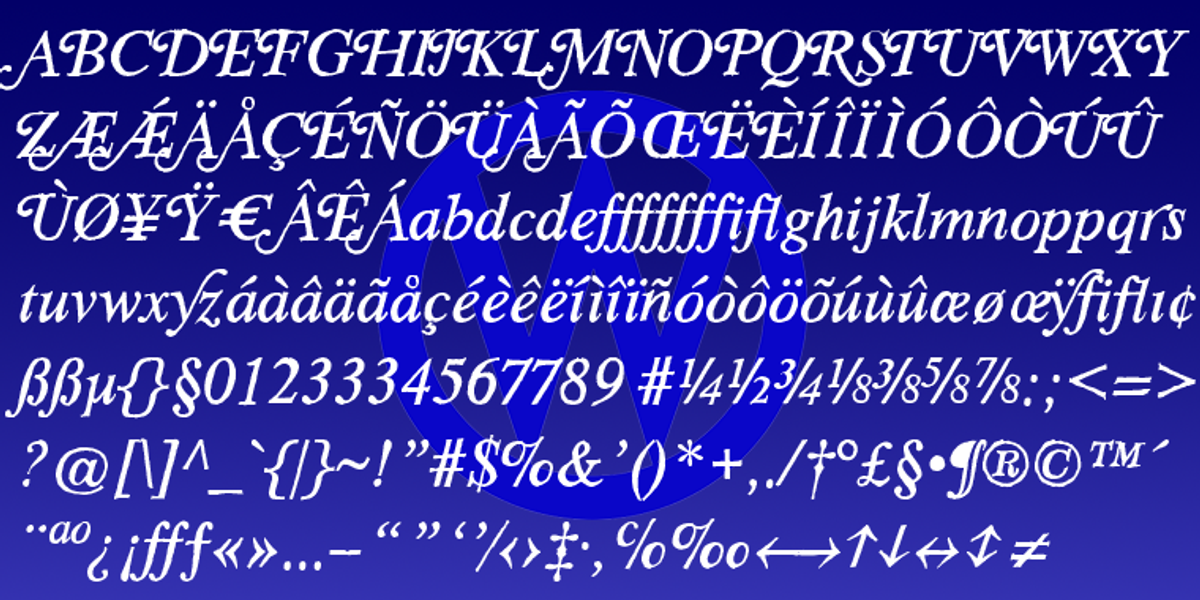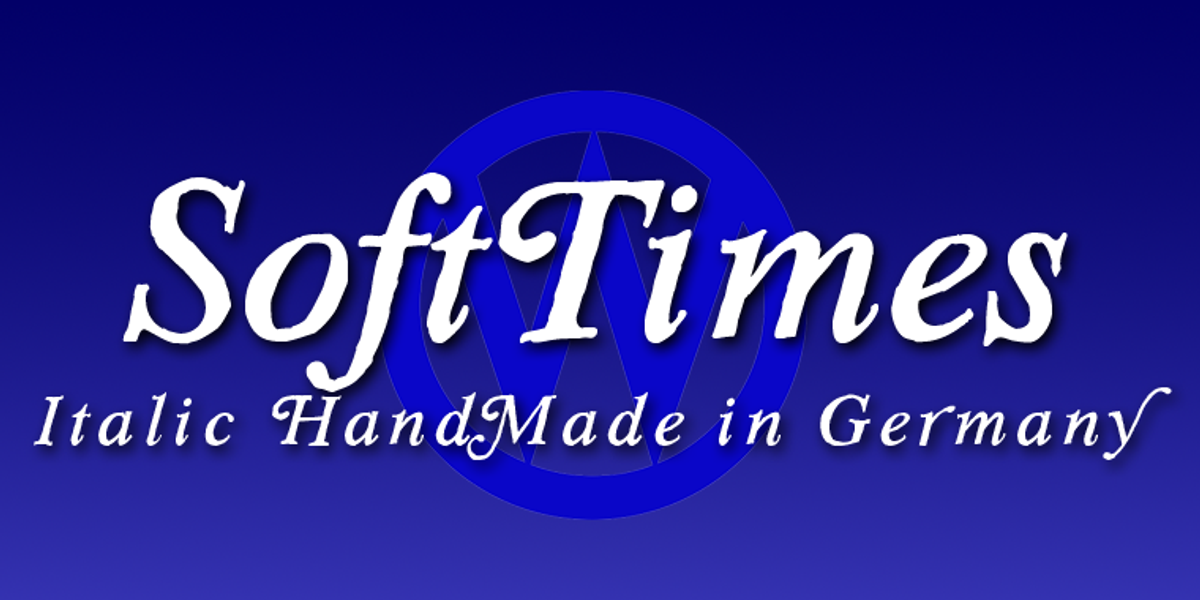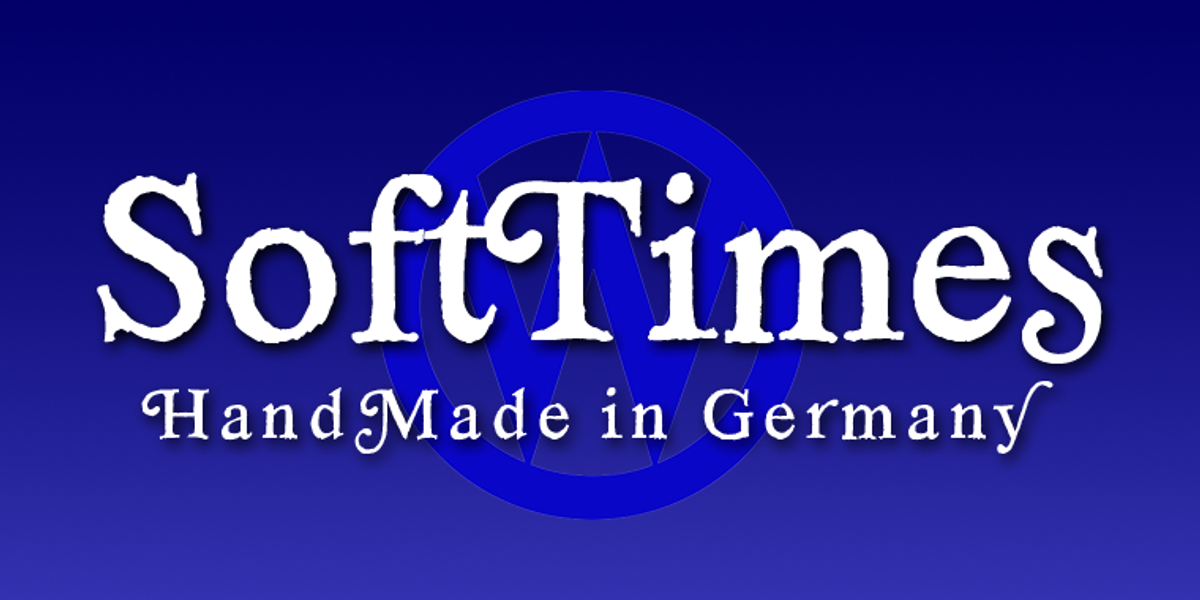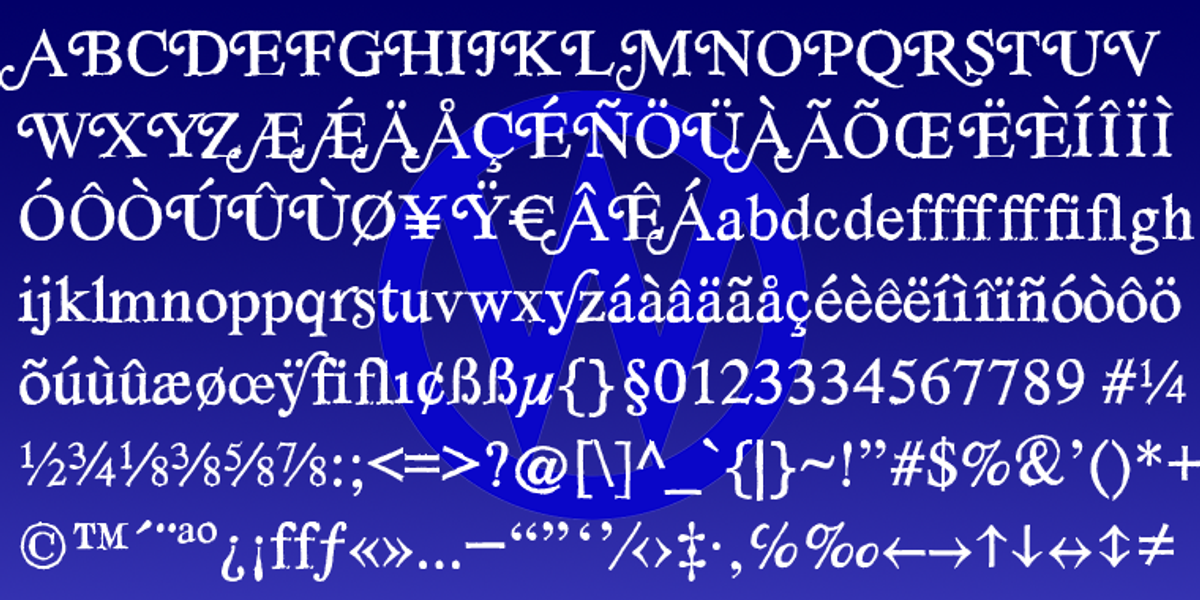
SoftTimes
Tosca is a decorative display serif typeface designed by Gert Wiescher. It features 730 glyphs and includes a second set of capital letters in the form of small caps, accessible through OpenType. The font also offers a wide range of ligatures, further enhancing its decorative appeal.